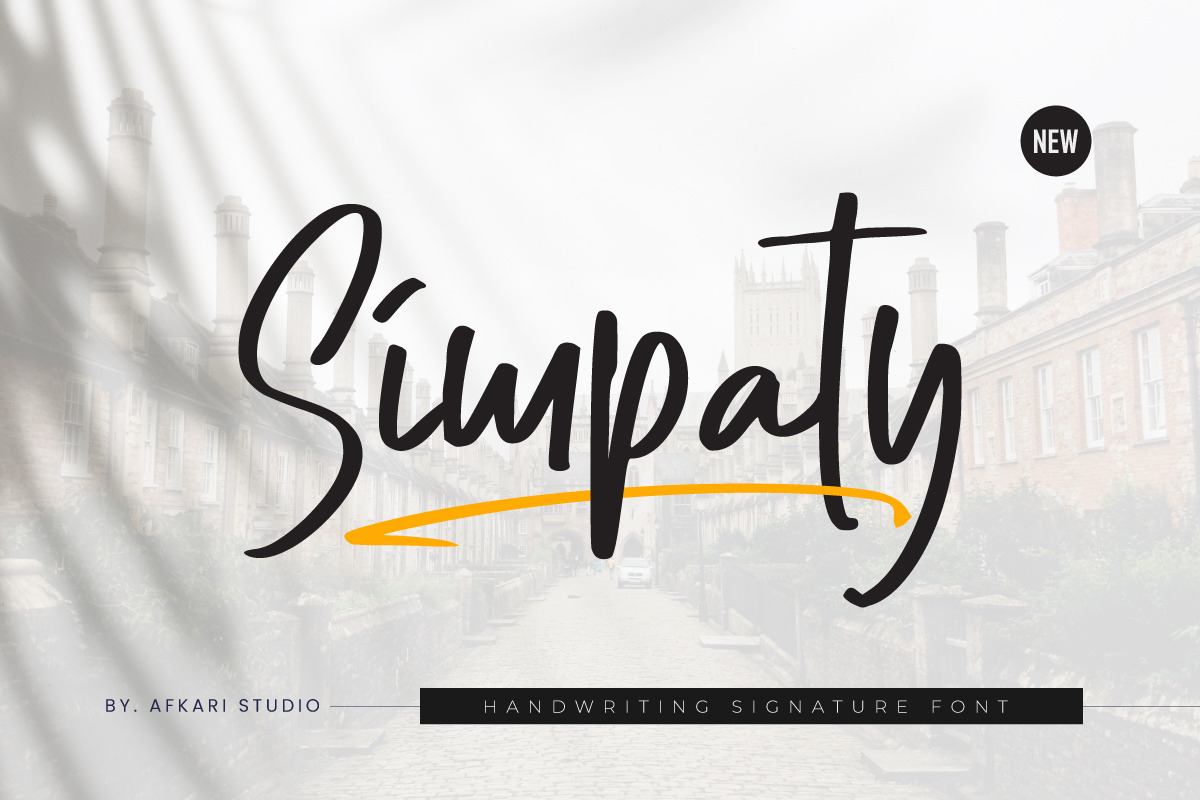
Simpaty Handwritting Signature Font Free Download
Simpaty Handwriting Signature Font Free Download
The Simpaty Handwriting Signature Font Free Download is an elegant and flowing script font that mimics the beauty of a personal handwritten signature. Perfect for creating custom branding, invitations, logos, social media graphics, and personal stationery, this font brings a sophisticated, authentic, and signature-style touch to your designs.
With its smooth curves and natural flow, Simpaty offers a refined, yet approachable look. It includes uppercase and lowercase letters, ligatures, stylistic alternates, punctuation, and multilingual support, ensuring versatility for a wide range of creative projects.